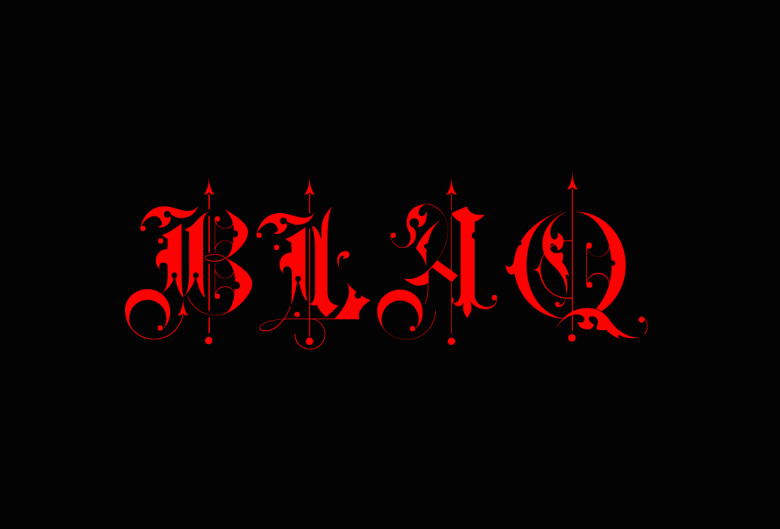
BLAQ Font Family
BLAQ Font
Inspired by Henry W. Troy, BLAQ is a new version of Trojan Text not available as font. Is an ornamental blackletter alphabet. Works great in headlines and other ‘masculine’ like design settings. The Victorian Gothic or Neo-Gothic is an architectural movement that began in the 1740s in England. Its popularity grew rapidly in the early nineteenth century. The revived Gothic style was not limited to architecture.